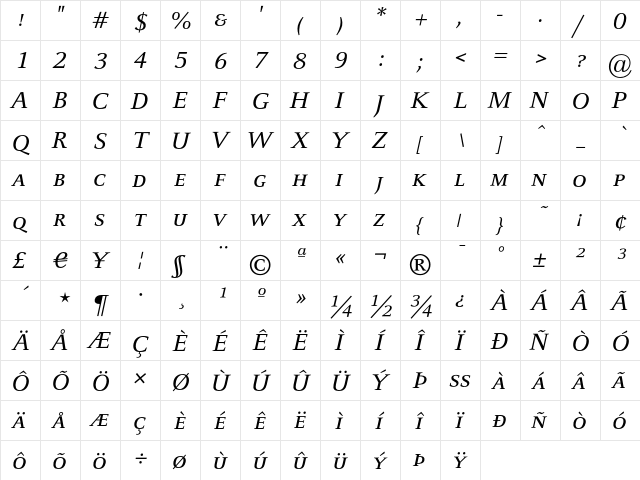
CelesteST SCItalic
CelesteST offers clean, dependable letterforms without strong stylistic allegiance, making it a practical choice for designers who need flexibility. The slanted form adds forward momentum and visual energy.
Pro Tip: Use CelesteST for emphasis, pull quotes, and subheadings where its slanted energy can add rhythm to the layout.